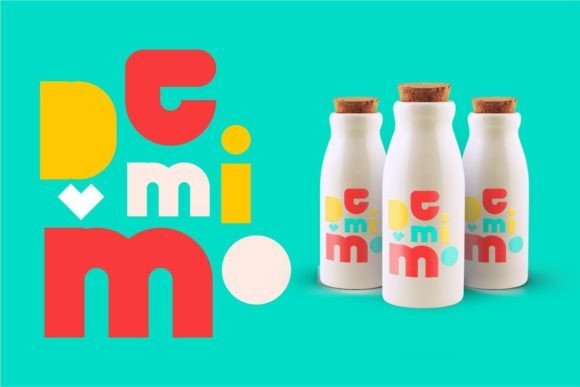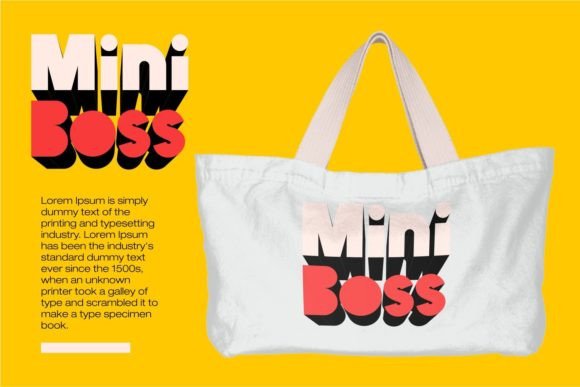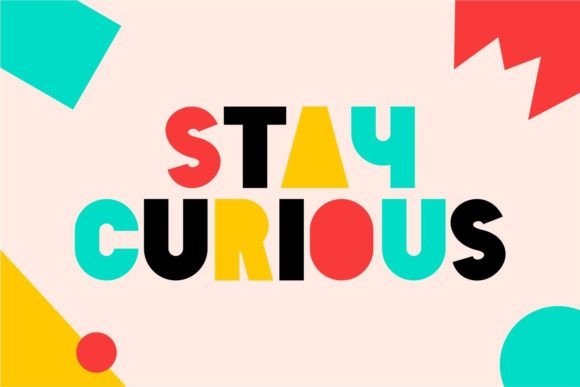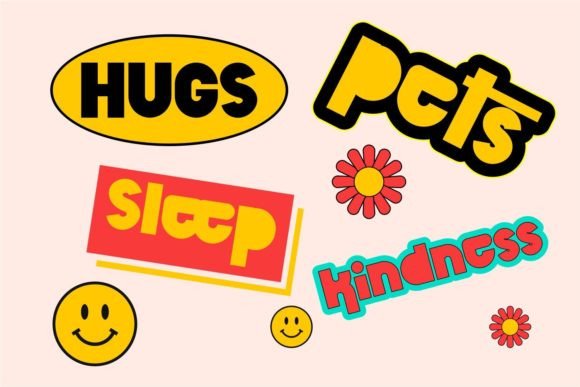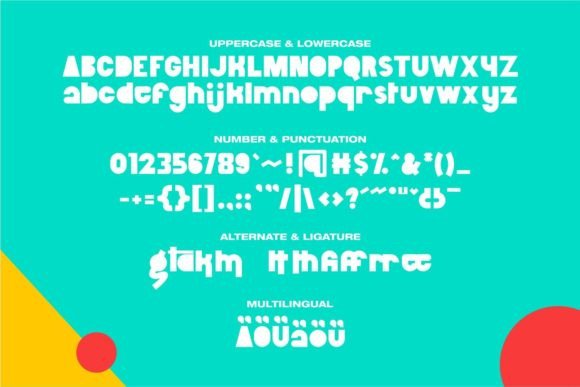
Introducing Demak Font: Elevate Your Designs with a Youthful and Stylish Display Font
Are you tired of using the same old fonts in your designs? Look no further than Demak Font, a stylish display font that exudes a youthful and vibrant style. With its unique and modern aesthetic, Demak Font is perfect for crafters, designers, and businesses looking to add a touch of personality to their visual materials.
What Makes Demak Font So Special?
Demak Font is a versatile display font that can be used on a wide range of design projects, including invitations, greeting cards, branding materials, business cards, quotes, posters, and more. Its bold and eye-catching style makes it perfect for grabbing attention and conveying a sense of fun and playfulness.
One of the standout features of Demak Font is its ability to add a touch of sophistication and elegance to any design. Whether you’re creating a formal invitation or a casual social media post, Demak Font is sure to make your text stand out and leave a lasting impression.
Key Features of Demak Font
- Youthful and Stylish: Demak Font boasts a modern and trendy aesthetic that’s perfect for designs that require a youthful and energetic vibe.
- Versatile: Use Demak Font on a wide range of design projects, from invitations and greeting cards to branding materials and posters.
- Easy to Read: Despite its bold and stylized design, Demak Font remains easy to read and understand, making it perfect for use on both digital and print materials.
- High-Quality: Demak Font is a high-quality font that’s designed to deliver exceptional results, whether you’re working on a professional design project or a personal craft.
Here are a few tips for getting the most out of Demak Font:
- Experiment with Different Sizes: Demak Font looks great in a variety of sizes, from large and bold to small and subtle.
- Play with Colors: Demak Font comes in a range of colors, so don’t be afraid to experiment and find the perfect hue for your design.
- Combine with Other Fonts: Demak Font pairs well with a range of other fonts, so try combining it with different styles to create a unique and eye-catching design.
Who Can Benefit from Using Demak Font?
Demak Font is perfect for a wide range of designers and crafters, including:
- Graphic Designers: Add a touch of personality to your designs with Demak Font’s unique and stylish aesthetic.
- Crafters: Use Demak Font to create beautiful and eye-catching craft projects, such as handmade cards and invitations.
- Small Business Owners: Elevate your branding materials and marketing collateral with Demak Font’s bold and professional style.
- Social Media Influencers: Use Demak Font to create engaging and attention-grabbing social media posts that stand out from the crowd.
Demak Font is a versatile and stylish display font that’s perfect for designers and crafters looking to add a touch of personality to their visual materials. With its youthful and modern aesthetic, Demak Font is sure to make your designs stand out and leave a lasting impression.